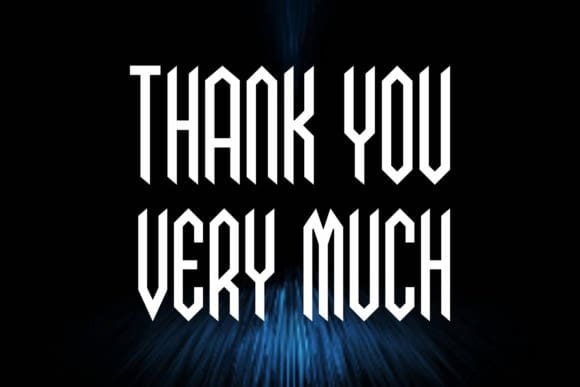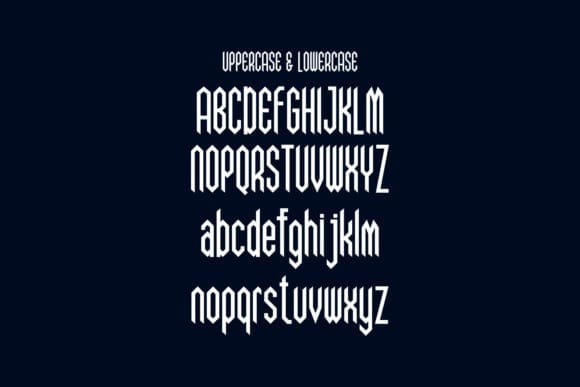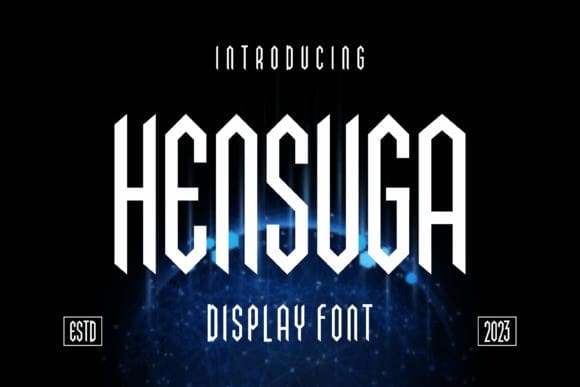
Hensuga Display Font
Hensuga Display Font, is an incredibly unique display font. Masterfully designed to become a true favorite, this font has the potential to bring each of your creative ideas to the highest level!